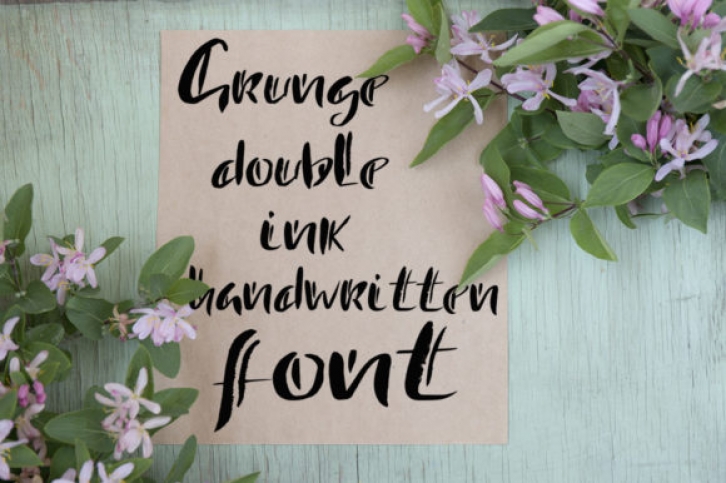
Double Ink is a cool, trendy and quirky display font. No matter the topic, this font will be an incredibly asset to your fonts’ library, as it has the potential to elevate any creation.